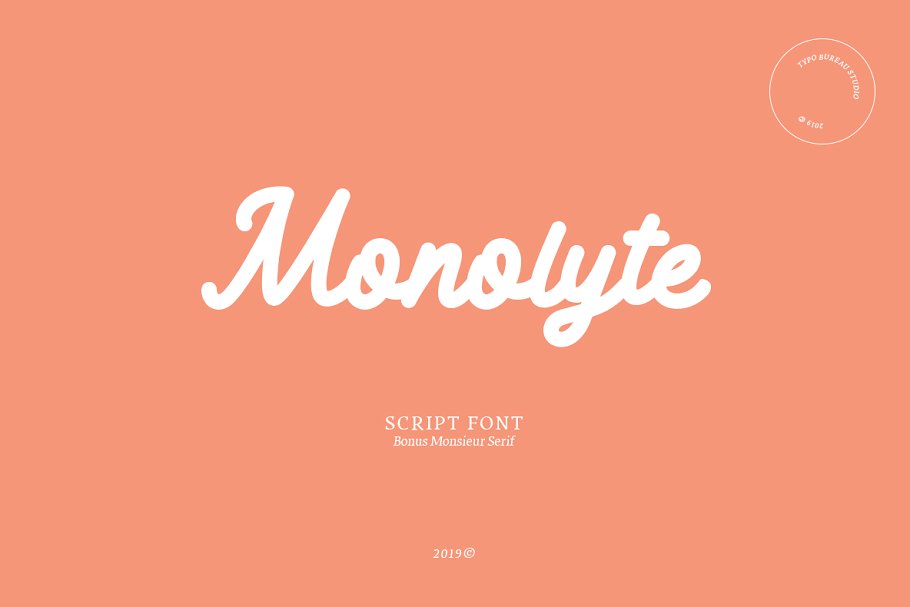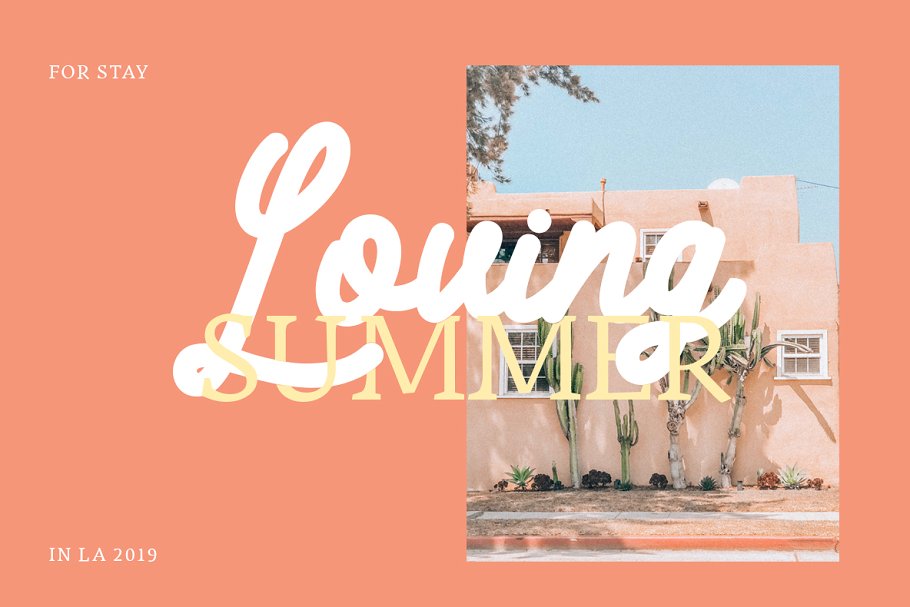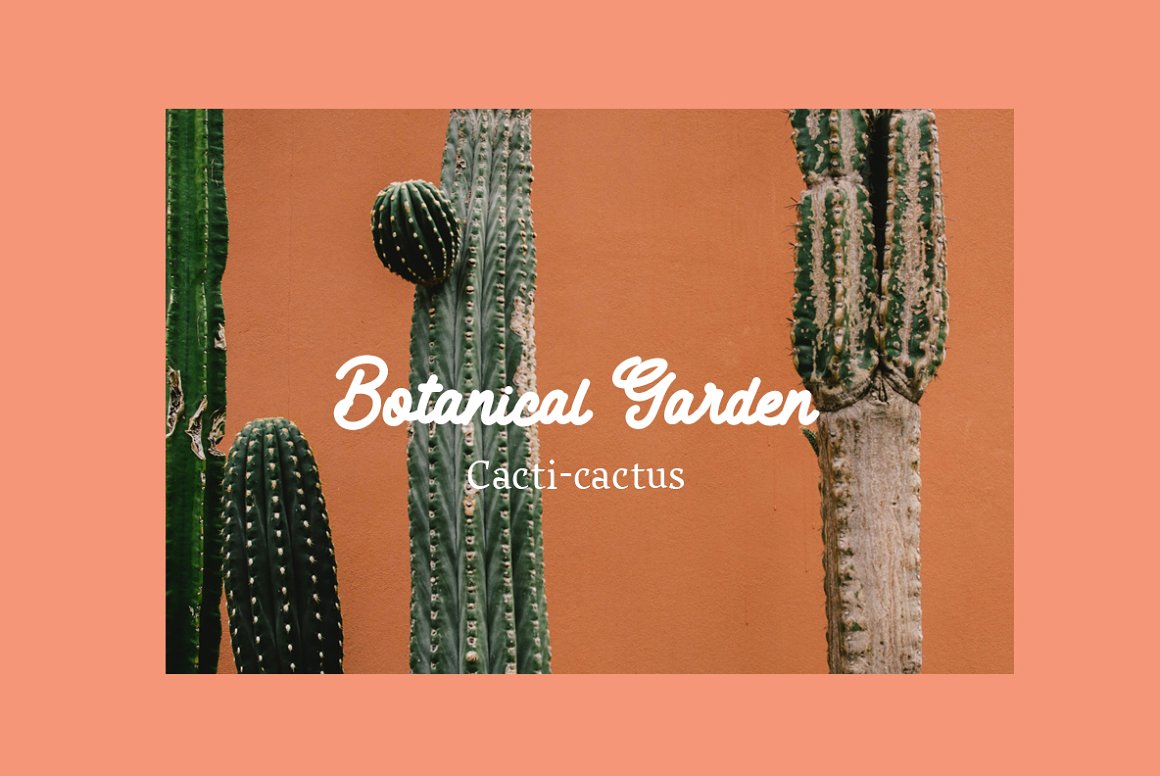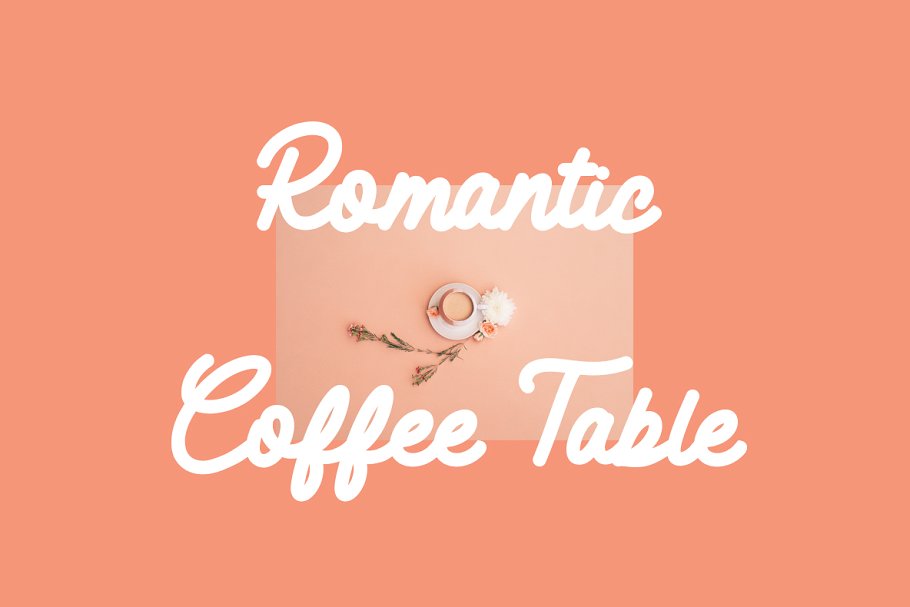
Monolyte Script Font
It’s a beautiful monoline free commercial font. This font is perfect for logo designs, branding, invitations, t-shirt designs, mock-ups, magazines, signage and so much more!
Monolyte is a handmade font and is perfect for your upcoming projects. So don’t miss out! Grab this amazing monoline font now.